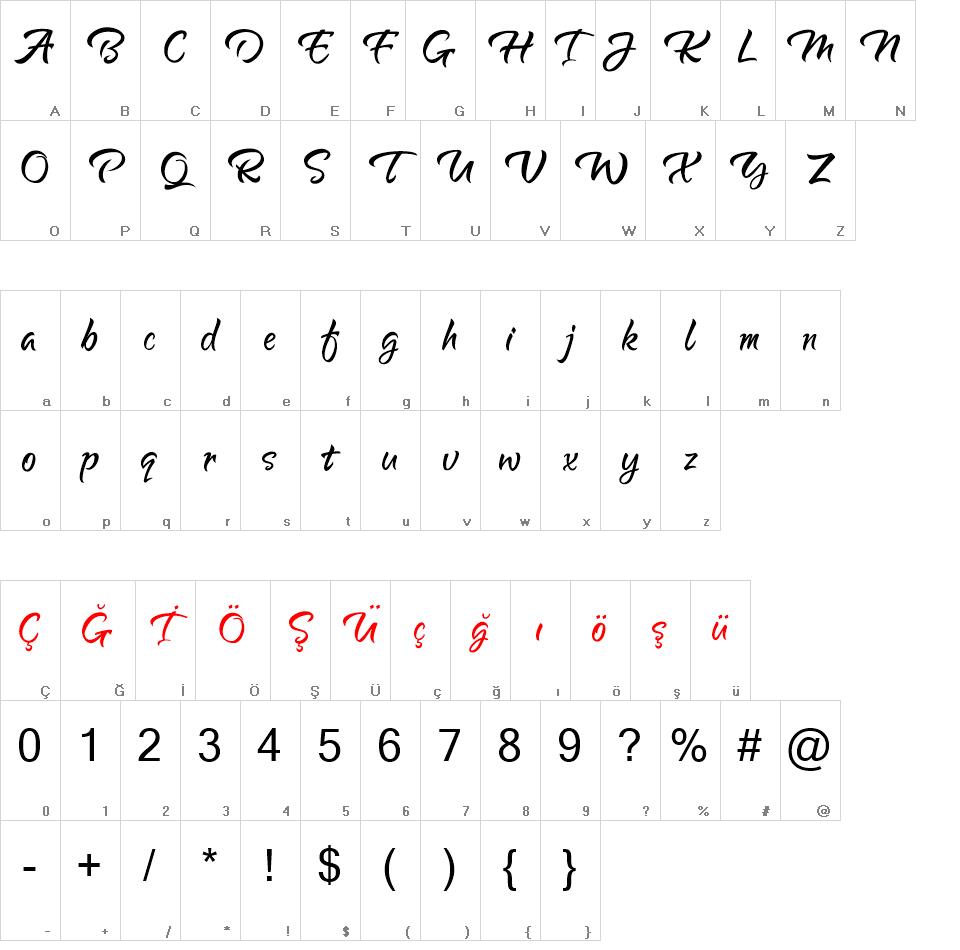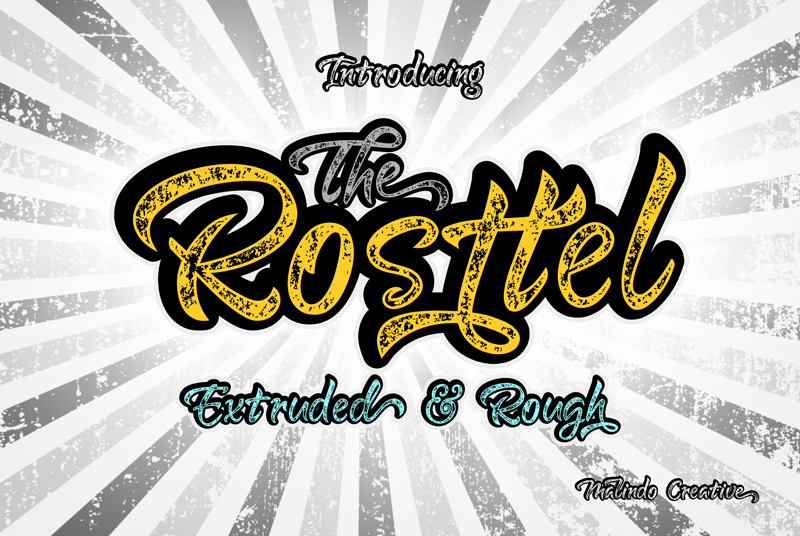
Rosttel font
Introducing, Rosttel Extruded & Rough is a beautiful retro and rugged font, with a retro style giving a touch of attractive design typography, Rosttel Extruded & Rough is one of the handwriting projects. It was very inspired by the famous retro typography design.
Rosttel Extruded & Rough also comes with the Extruded & Rough Font version. So you don't need extra effort to make the effect repel and rough for this font,with Rosttel Extruded & Rough you can create many design styles.
Rosttel Extruded & Rough is also equipped with 514 Glyphs, and also features OpenType.
The Features includes: Stylistic Alternates, Swashes, Ligatures, and Stylistic Set.Extrude,and You can pick the alternate for all style